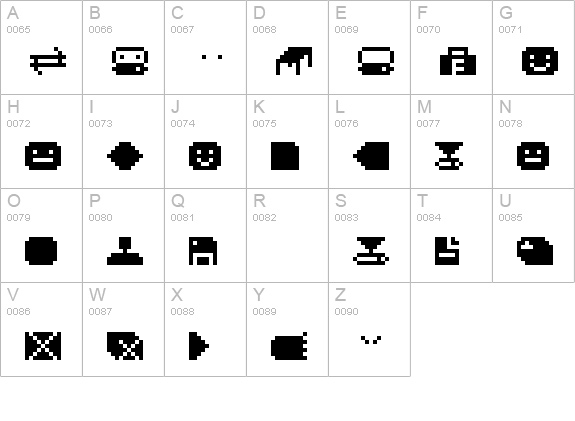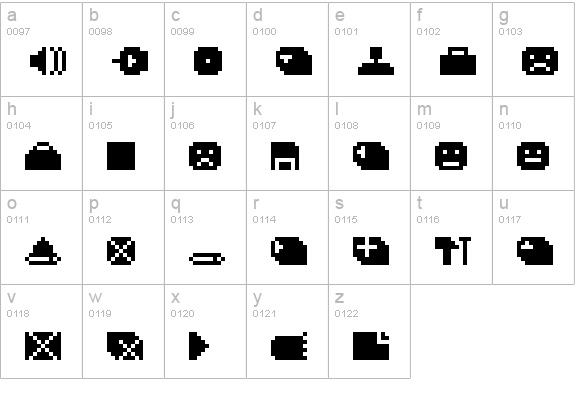
DS SysBatBit Font Details
DS SysBatBit font is a modern and stylish typeface that is perfect for adding a touch of sophistication to your designs. This unique font features a sleek and futuristic design with sharp edges and clean lines, making it ideal for a wide range of projects. Whether you're creating a logo, designing a website, or working on a print project, DS SysBatBit font is sure to make a statement. One of the best things about DS SysBatBit font is that it is available for free download at FontsMarket.com. This means that you can easily access this high-quality font without having to spend a dime. With its versatility and eye-catching design, DS SysBatBit font is a must-have for any designer looking to elevate their work. Download it today and see the difference it can make in your projects!